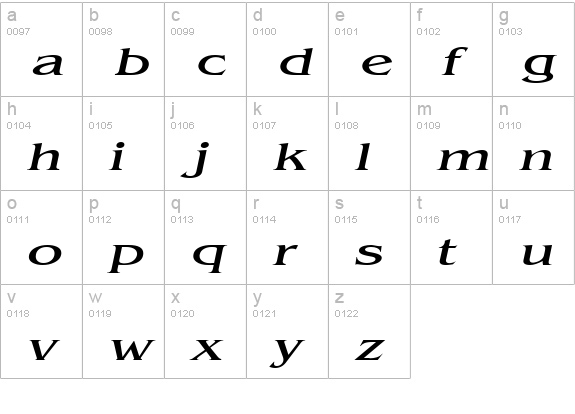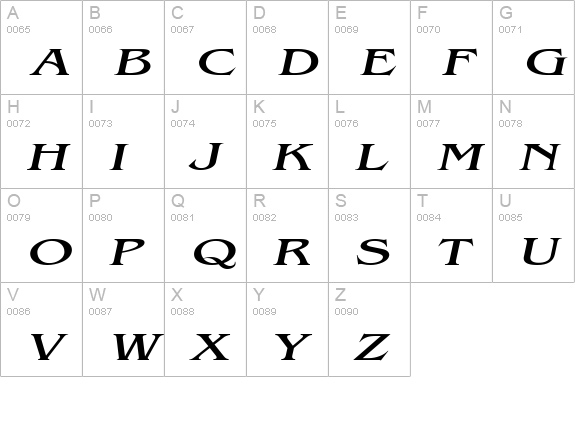
Bangle Extended Italic Font Details
Bangle Extended Italic is a distinctive, extended-width, italic variant in the Bangle typeface family \xE2\x80\x94 well suited to design and typography projects.
Bangle Extended Italic font is a stylish and elegant typeface that exudes sophistication and modernity. Its elongated design and slanted italics create a sleek and contemporary look, making it perfect for projects that require a touch of flair. This font is perfect for branding, advertisements, invitations, and more. The slanted italics add a dynamic and eye-catching element to your designs, making them stand out from the crowd. Best of all, Bangle Extended Italic font is available for free download at FontsMarket.com. This means you can easily access this beautiful typeface and use it in your projects without any cost. Don't miss out on this fantastic opportunity to elevate your designs with Bangle Extended Italic font!